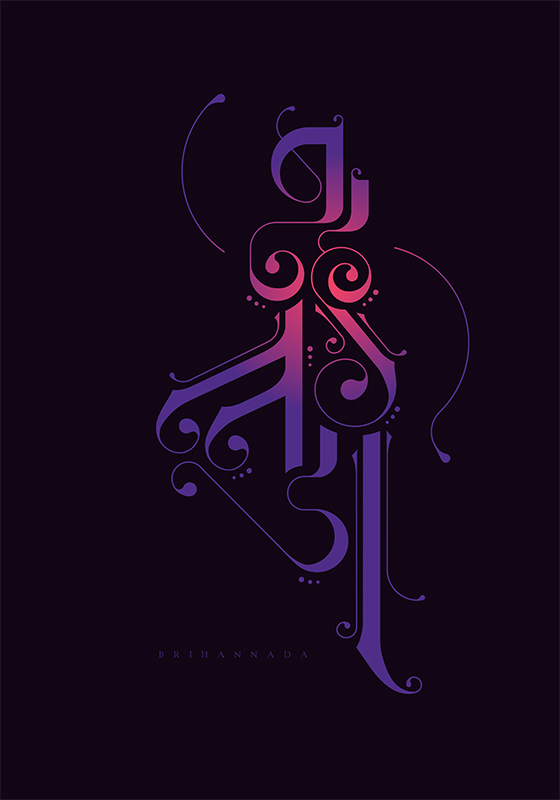
Typography Day 2019: experimental typography dances wild in this year's poster design competition
With five grandmaster keynotes, 16 full day workshops, 25 paper presentations, 1.100 poster entries, 40 poster winners, nine installations, and 15 projects with 550 participants Typography Day 2019 at IDC School of Design (IDC), Indian Institute of Technology Bombay (IITB), Mumbai is an event which celebrates our mutual love for the letters. Organized for the twelfth time this year this fest of creativity took place from the 2nd to the 4th of March 2019 and TD2019 was particularly significant as it was held to coincide with IITB’s Diamond Jubilee (60th year) celebrations as well as IDC’s Golden Jubilee (50th) year celebrations.
With this year's theme focusing on what is called 'Experimental Typography' an international conference was dedicated to addressing issues faced by type designers, type users and type educators. The conference included keynote deliveries from international grandmasters, as well as academic presentations that have been selected through a blind jury process. The event has attracted industry professionals, academics, research scholars, and students alike and it included an exhibition of posters that have been selected from an international competition with participation from upwards of fifty countries.
Following are some of the winning entries from the Typography Day 2019 Poster Design Competition for the title 'Dance of Typography'. The winning entries were published and displayed in this year's typographic fest.
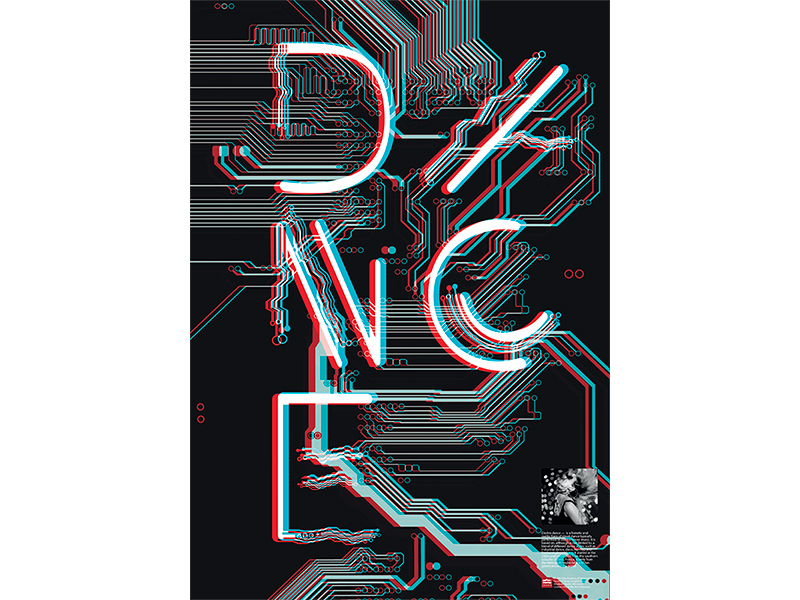
'Electro Dance' by Anastasiya, Ukraine
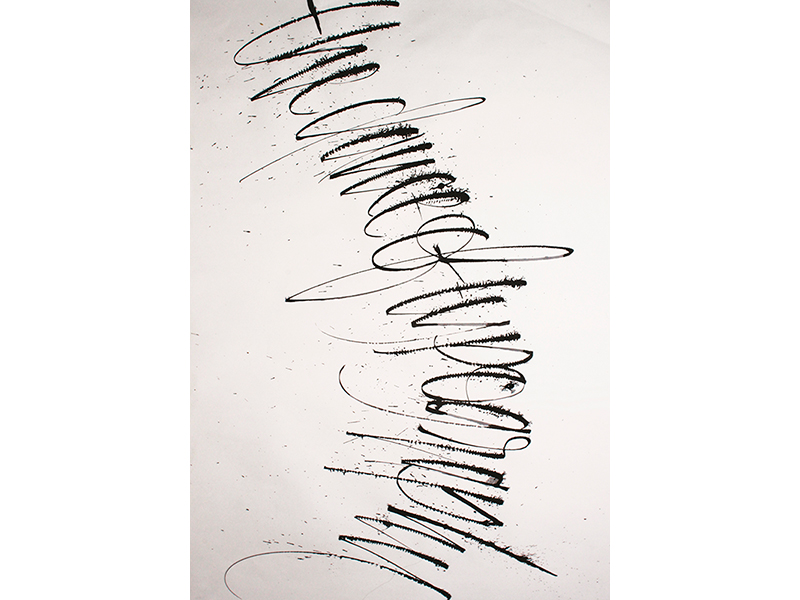
'Dance of Typography' by Sanjeev Kumar, India
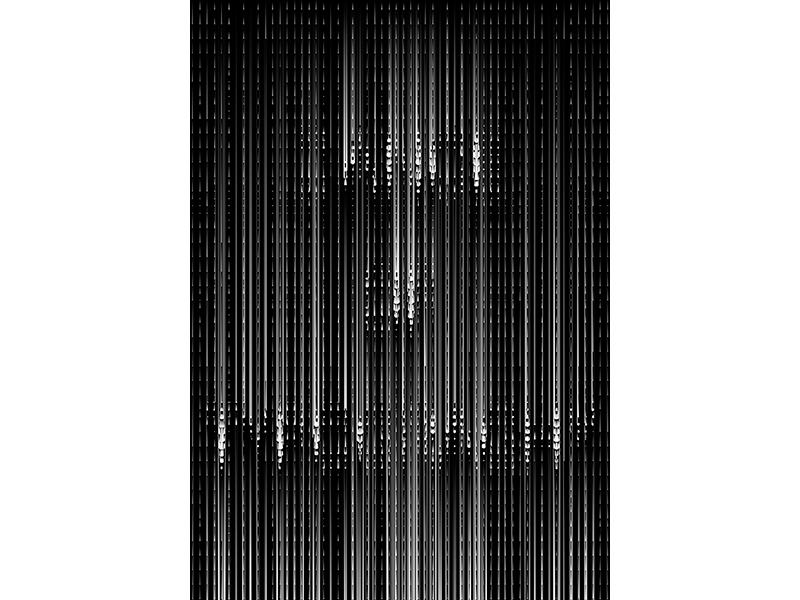
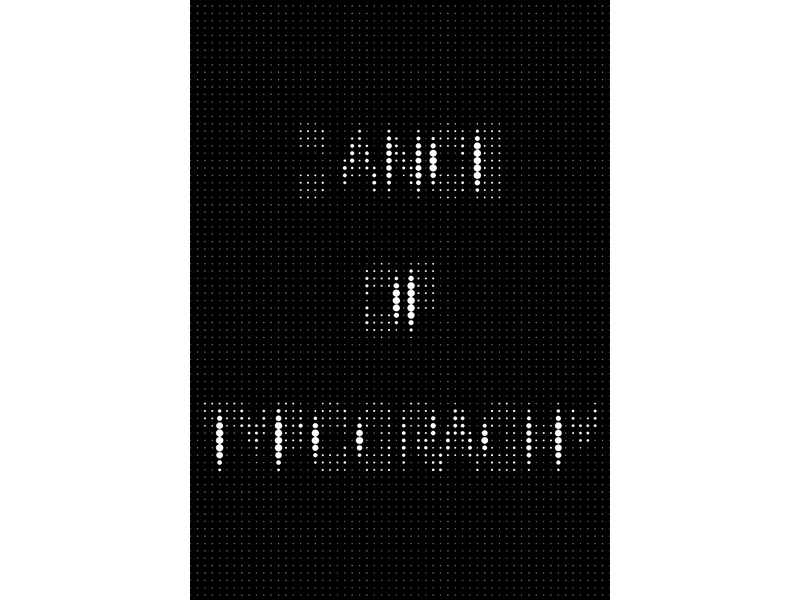
'Dance of Typography' by Siddhesh Sushil Shirsekar, India
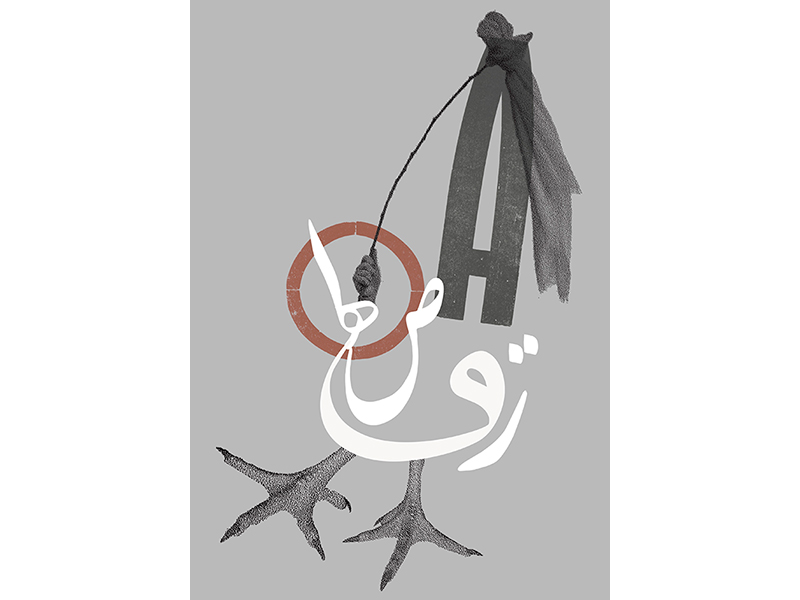
'White Wednesday Movement' by Maryam Hosseinnia, Kuwait
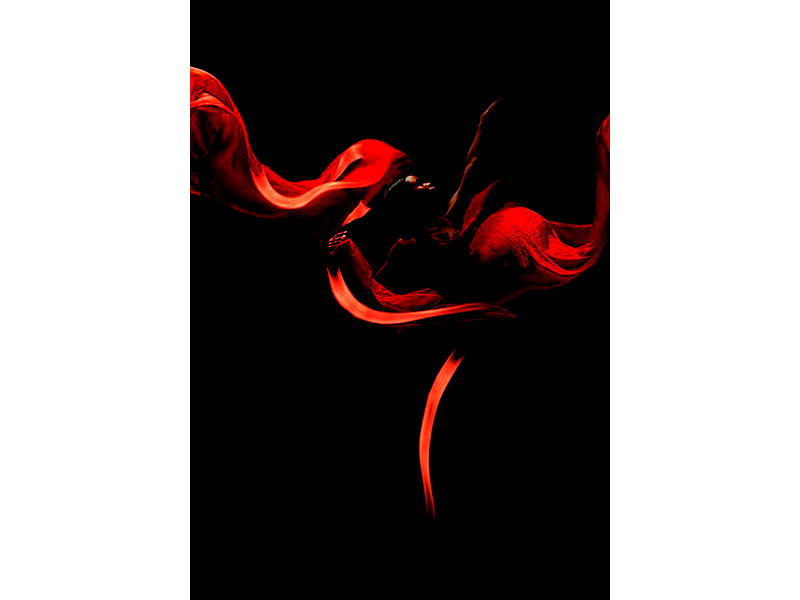
'Dalla meaning Fire' by Lahiru Dilshan Ranathunga, Sri Lanka
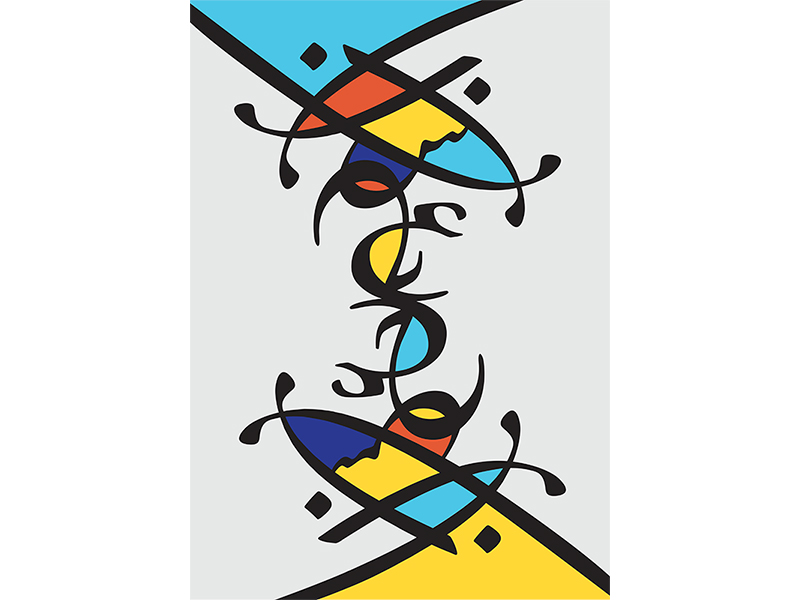
'Dance of Typography' by Marah Al-Kazak, Kuwait
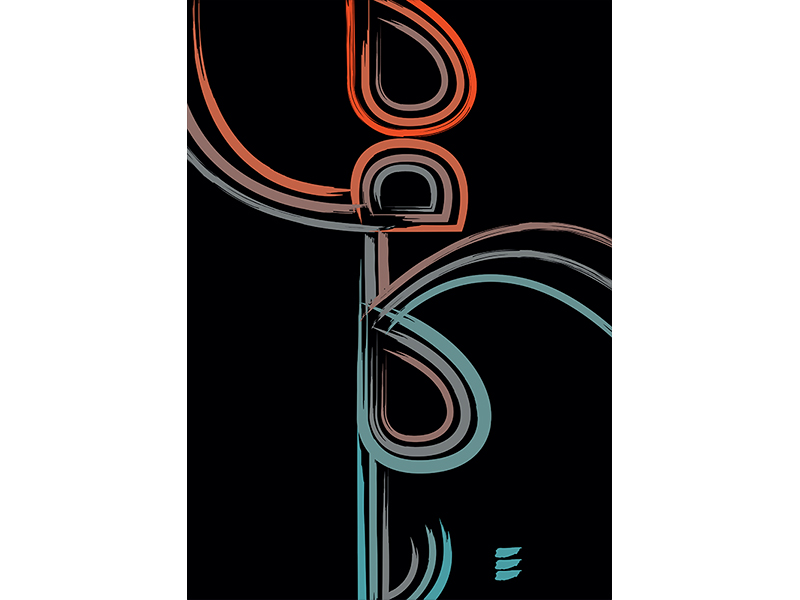
'lines in Arabic' by Salma Mohammad, Kuwait
'Rhytym of The Letters' by Evren Tural, Turkey
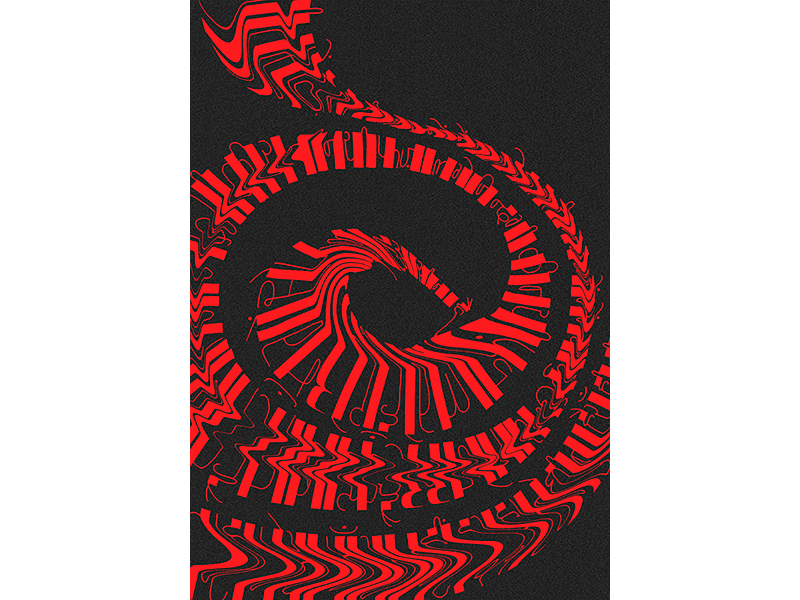
'Dance of Typography' by Sharvari Marathe, India
Slider image captions: 'Brihannala' by Uttam Hasabnis, India. 'Valley of Poverty and Annihilation' by Nasrin Bavafa, Iran. 'Valley of Love', by Nasrin Bavafa, Iran. 'Nrutya’ (Dance)', by Rajkumar H. Mahajan, India. 'Dance of Typography', by Shih-chieh, Hung, Taiwan. 'Dance of Typography', by Jinal R. Dahanuwala, India. All images via Typoday.